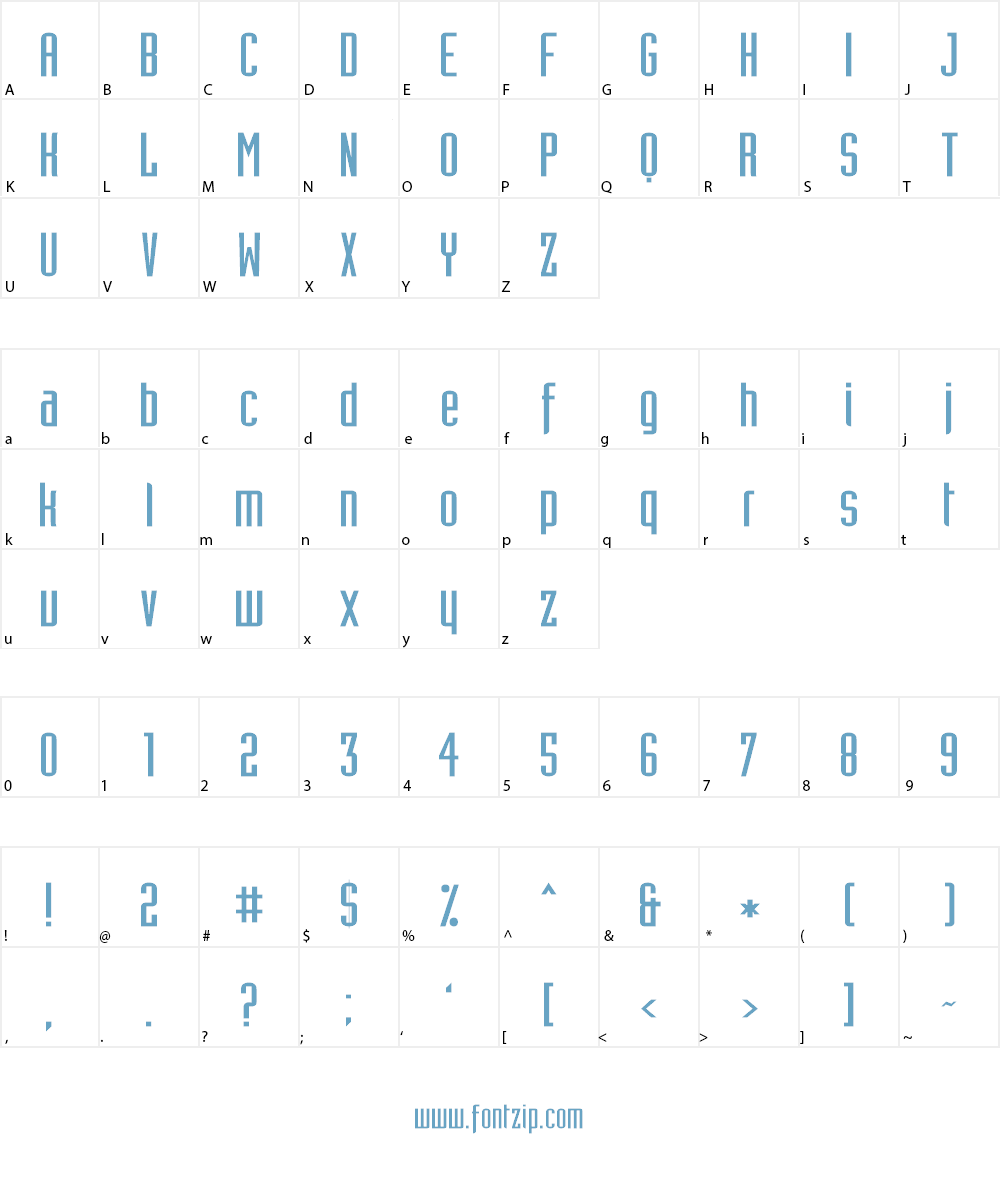
Assiduous is designed to mimic the font used on the BBC's Doctor Who books and videos. Assiduous was originally created in Acorn format by Peter Blake.